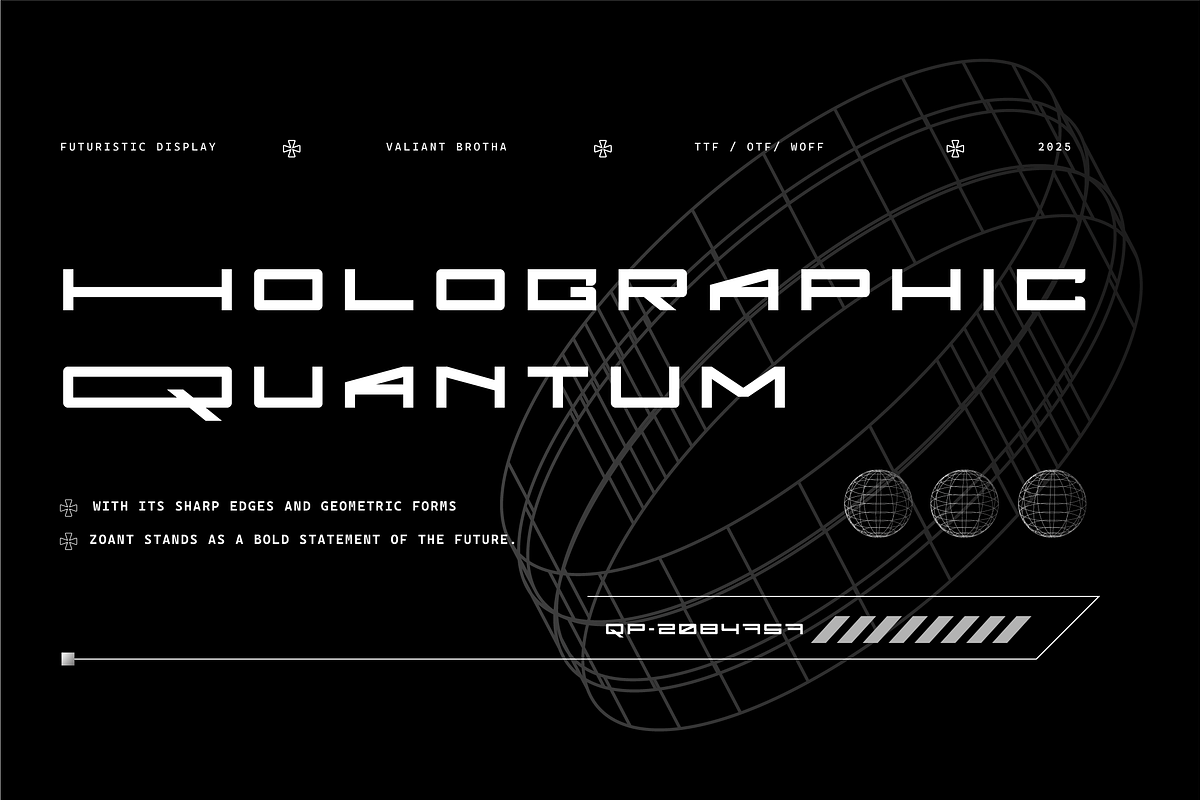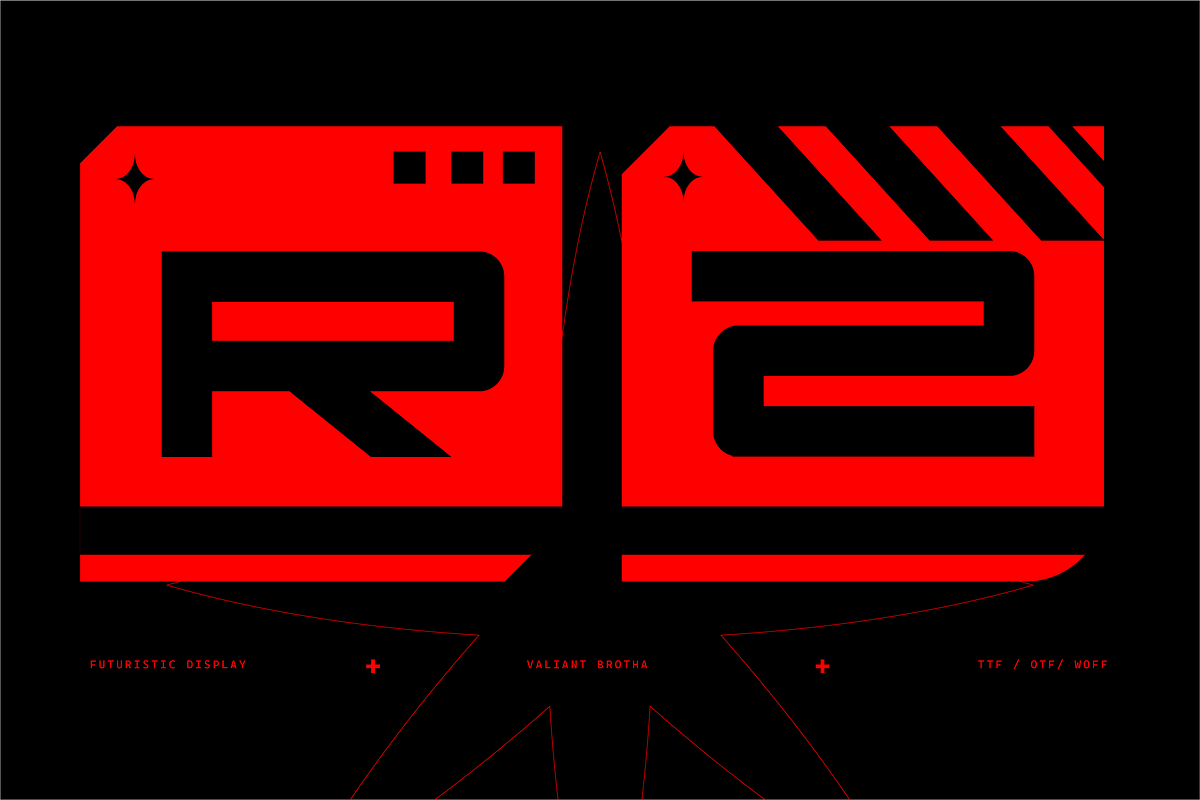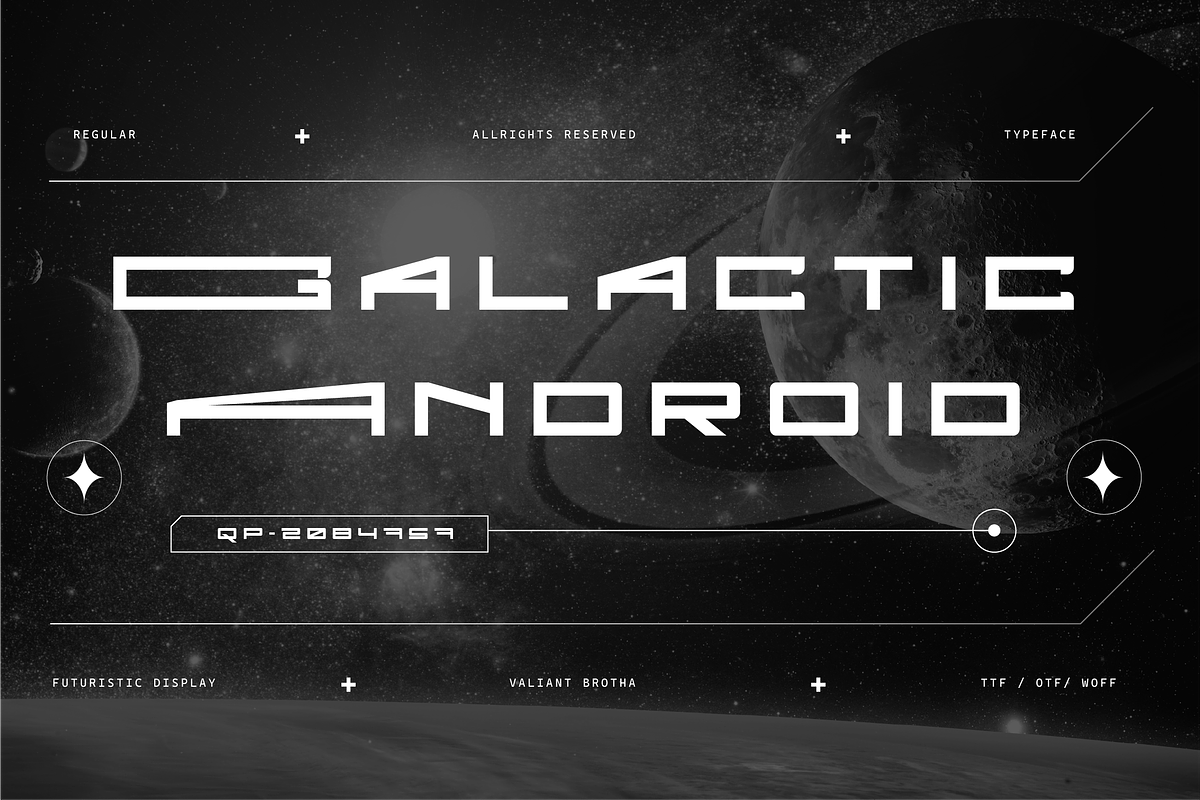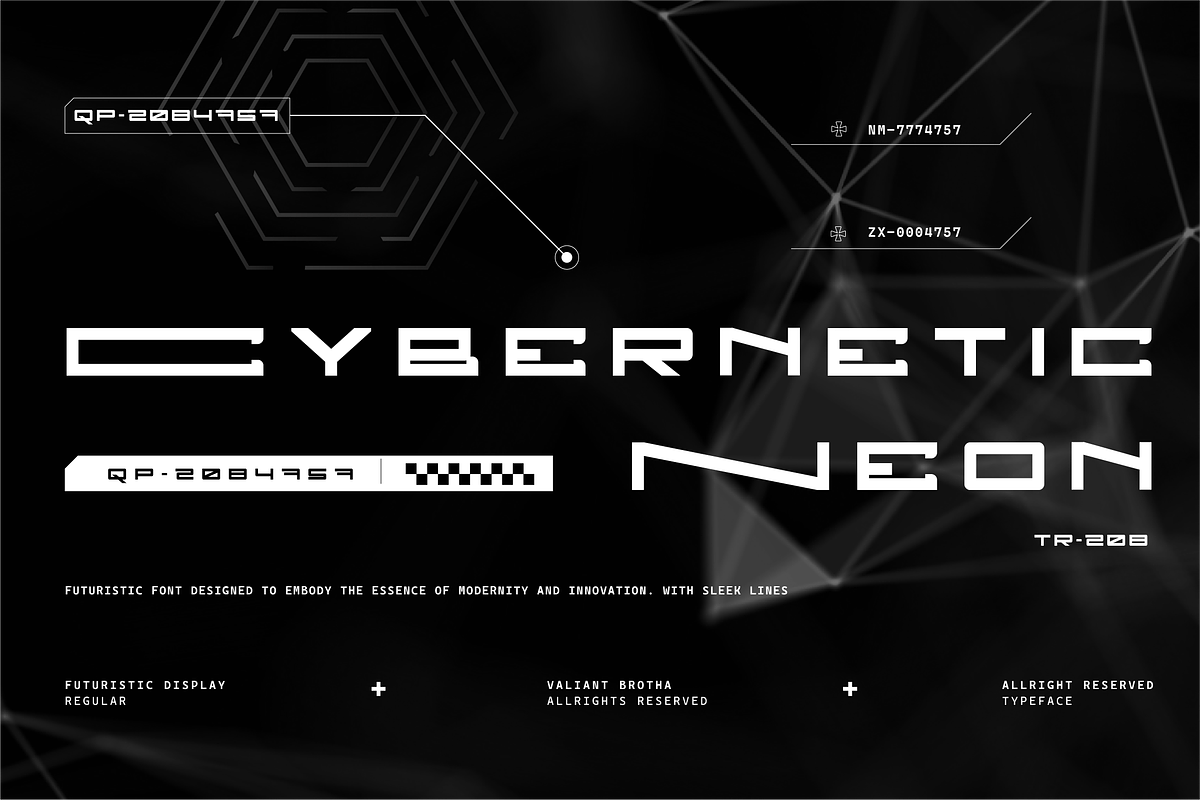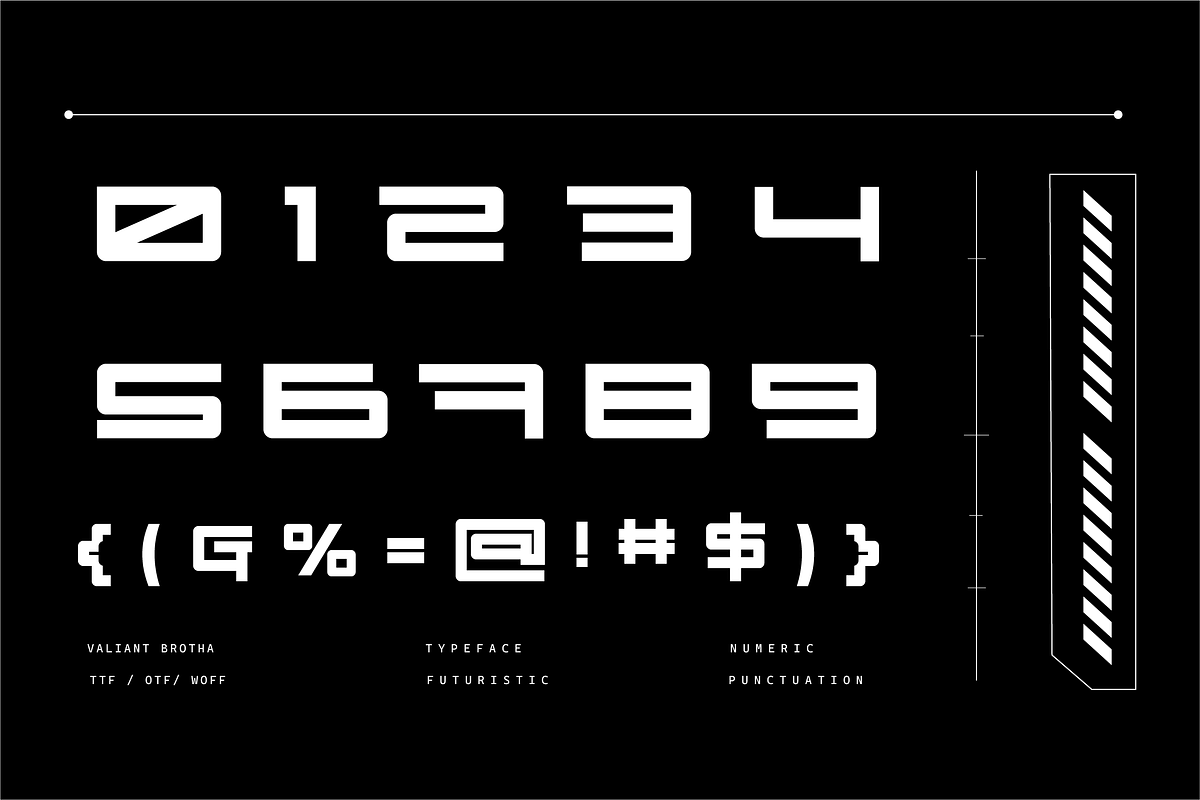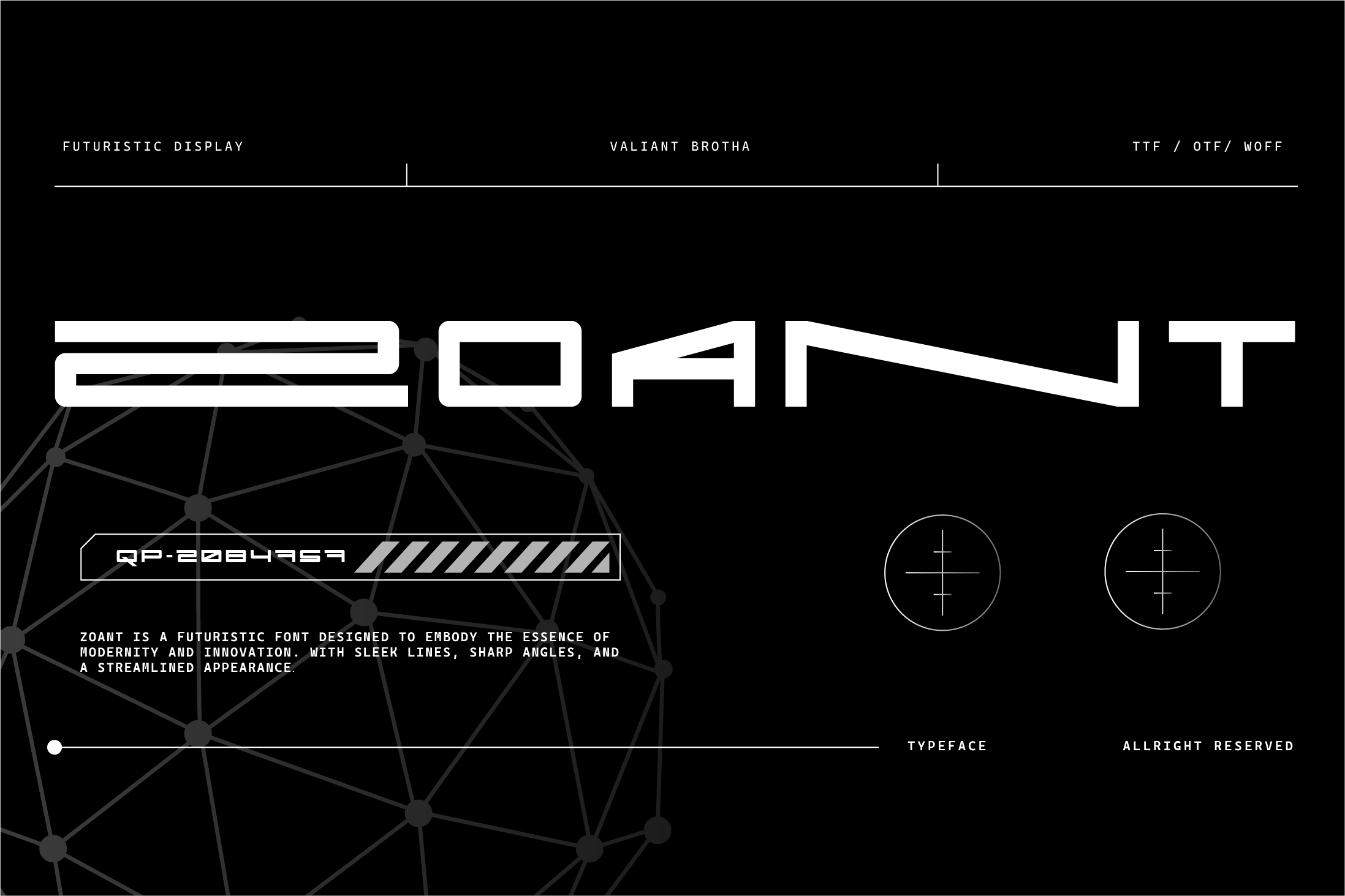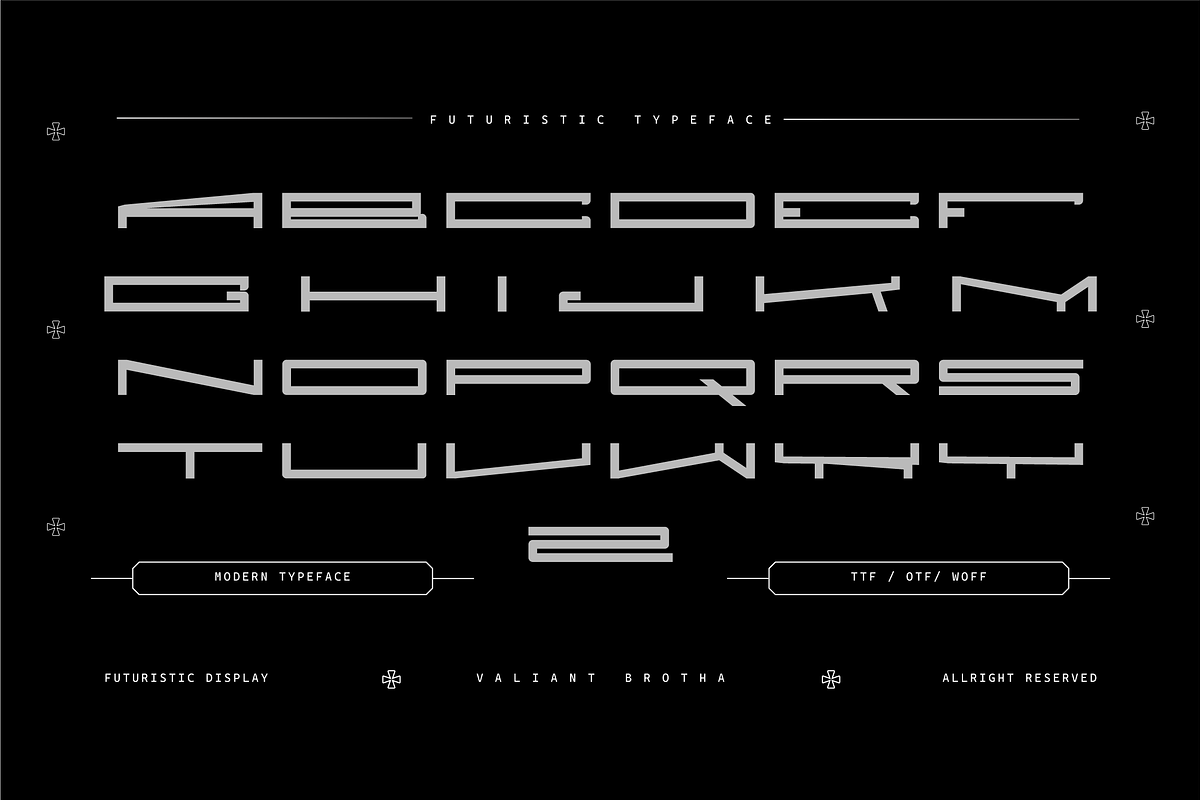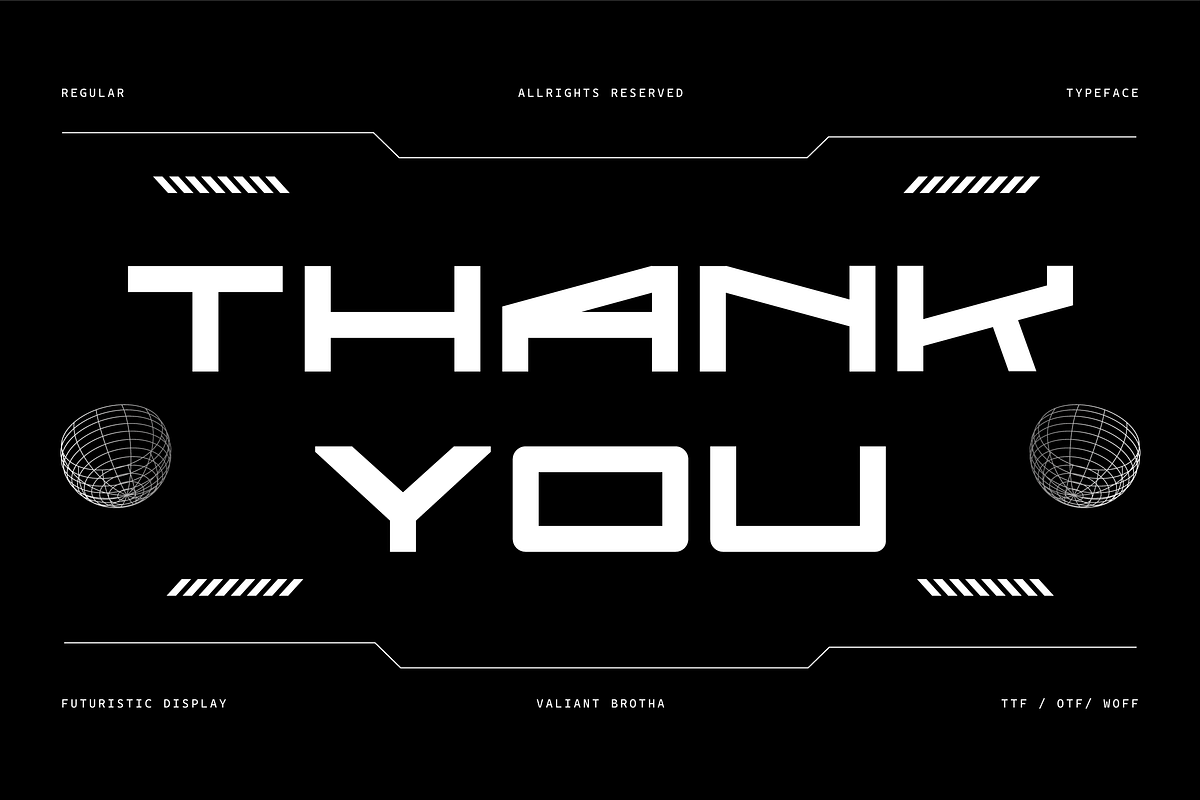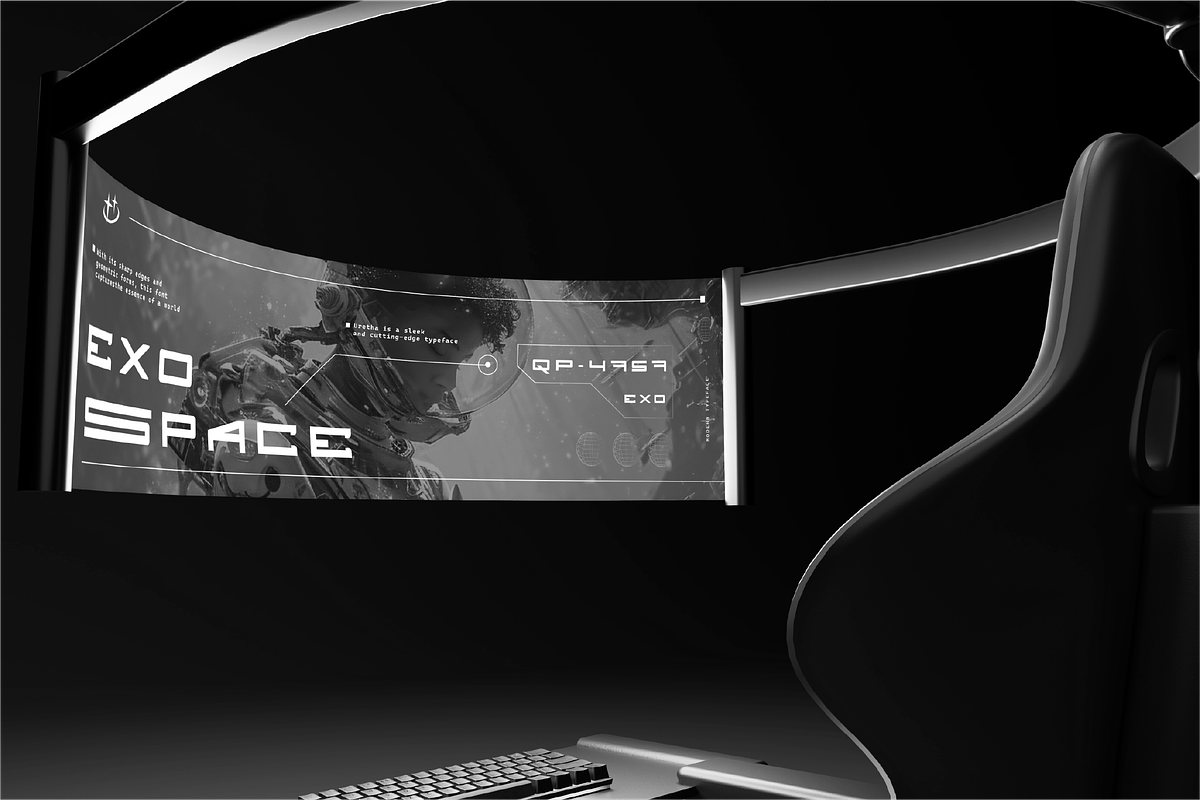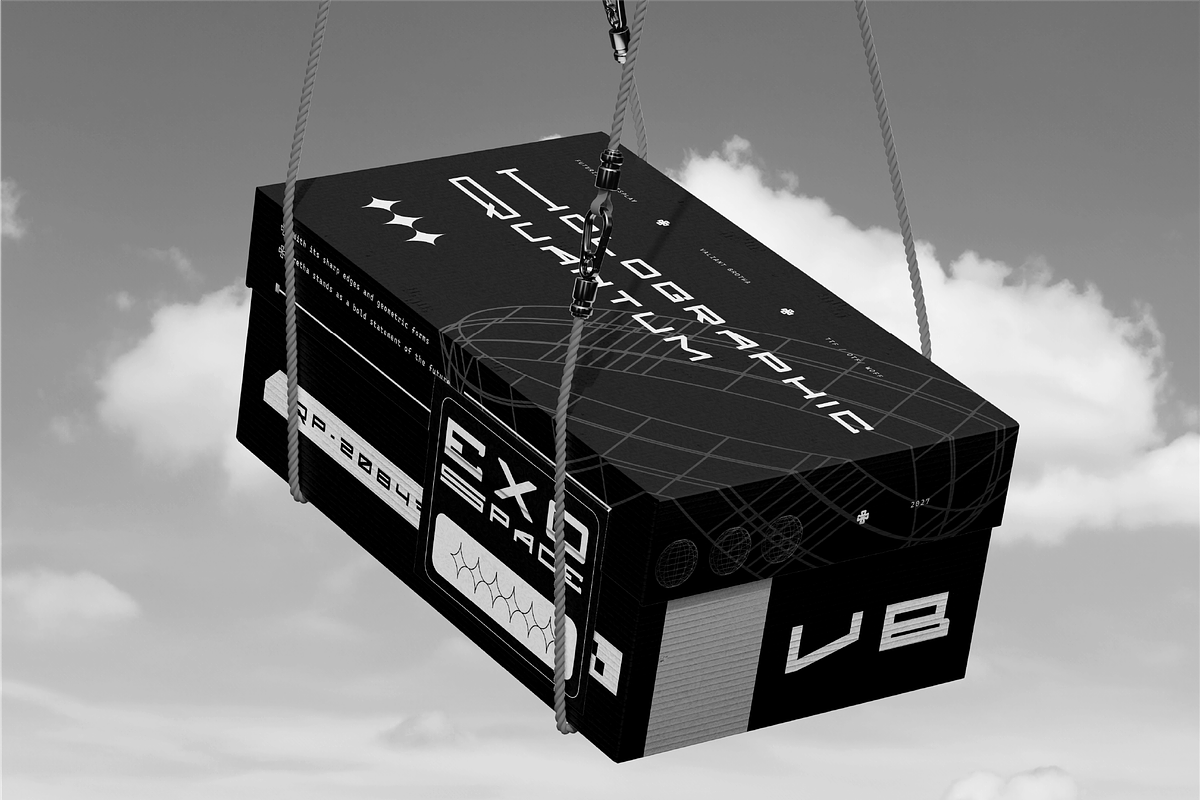
VB ZoaNt - Futuristic Display Font
ZoaNt Font is a bold and edgy typeface that combines sharp, angular elements with smooth, fluid curves to create a dynamic and unique visual appeal. Its modern design makes it perfect for high-impact headlines, branding, and digital content where attention-grabbing typography is key.